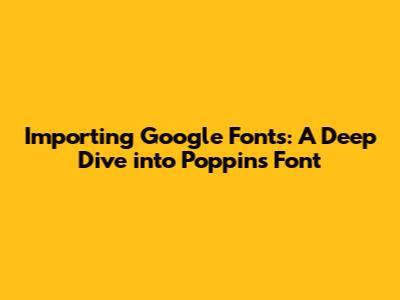
Hey everyone! Today, we're diving headfirst into the world of web typography, specifically focusing on how to import Google Fonts, with a spotlight on the incredibly popular Poppins font. If you're looking to elevate your website's design and make it stand out, choosing the right font is crucial. Google Fonts provides a vast library of free, open-source fonts that are super easy to integrate into your projects. Poppins, with its clean, modern aesthetic, is a fantastic choice for a wide range of applications, from blogs and portfolios to e-commerce sites and corporate platforms. This guide will walk you through the entire process, from selecting Poppins to seamlessly incorporating it into your HTML and CSS. We'll cover everything from the basic methods to more advanced techniques for optimal performance. So, let's get started and make your website look amazing with the power of Google Fonts and the elegance of Poppins!
Why Choose Poppins Font?
So, why all the fuss about Poppins? What makes it such a go-to font for so many web designers and developers? Well, the popularity of Poppins stems from several key features that make it a highly versatile and visually appealing choice. Firstly, Poppins boasts a clean and geometric design. This gives it a contemporary and minimalist look that works beautifully on screens. It's incredibly legible, which is essential for user experience. Whether it's a headline, a paragraph of text, or a call-to-action button, Poppins ensures that your content is easy to read and understand. Secondly, Poppins comes in a wide range of weights and styles. From thin and light to bold and extra-bold, you have plenty of options to create visual hierarchy and emphasize different parts of your content. This flexibility allows you to tailor the font to your specific design needs. You can use lighter weights for body text and bolder weights for headings, creating a well-structured and engaging layout. Thirdly, Poppins is highly adaptable. It looks great in both large and small sizes. This makes it perfect for responsive web design, where your font needs to look good on any device. Finally, and perhaps most importantly, Poppins is free! Being an open-source font on Google Fonts, it's accessible to everyone. This means you can use it for personal or commercial projects without worrying about licensing fees. So, in a nutshell, Poppins offers a winning combination of style, readability, versatility, and accessibility, making it an excellent choice for your web design projects. It's like the trusty friend that always makes your website look good, no matter the situation. Therefore, if you're aiming for a modern, clean, and professional look, Poppins should definitely be on your radar. Let’s get it, guys!
Step-by-Step Guide: Importing Poppins into Your Website
Optimizing Poppins for Web Performance
Advanced Techniques and Considerations for Google Fonts
Alright, let’s go a bit deeper, guys! Beyond the basic import and setup, there are some advanced techniques and considerations that can take your Google Fonts implementation to the next level. Let's delve into these techniques to master using Google Fonts. One advanced technique is to use the font-variant-numeric property in CSS. This property allows you to control how numbers are displayed. For instance, you can choose between lining figures (which align with the baseline) and old-style figures (which have ascenders and descenders). This can improve the visual consistency of your numbers in different contexts. Another consideration is the use of font subsets. Google Fonts allows you to subset fonts based on the characters you need. This is especially useful if you are targeting specific languages. By subsetting the font, you can reduce the file size and improve loading times. For example, if your website only uses English, you can exclude characters from other languages, reducing the size of the font file. Moreover, consider using a Content Delivery Network (CDN) for your CSS file. If you are hosting your CSS file on your own server, using a CDN can improve loading times by delivering the file from a server closer to the user. This is particularly beneficial for websites with a global audience. Furthermore, always keep an eye on accessibility. Make sure that your font choices are accessible to all users, including those with visual impairments. Use sufficient contrast between the font and the background, and ensure that your font size is readable. Additionally, use semantic HTML to improve the overall accessibility of your website. Lastly, consider future-proofing your font choices. Google Fonts regularly updates its fonts and adds new features. Always keep up-to-date with these changes to ensure that you are using the latest versions. Furthermore, be prepared to adapt your design if Google Fonts deprecates a font. By using these advanced techniques and considerations, you can create a more optimized, accessible, and future-proof website with Google Fonts and Poppins. That's a wrap, guys! I hope you liked it.